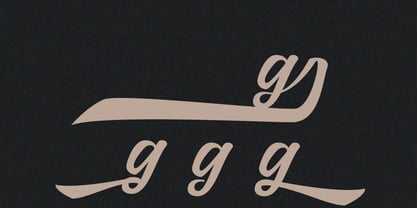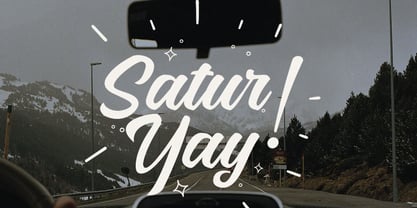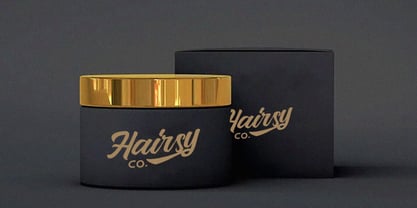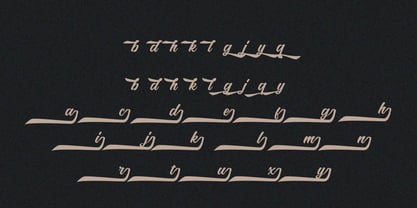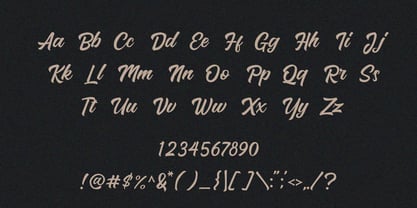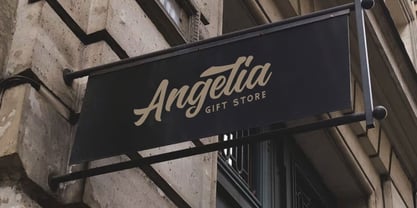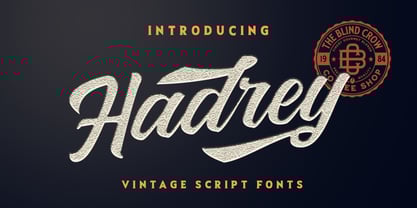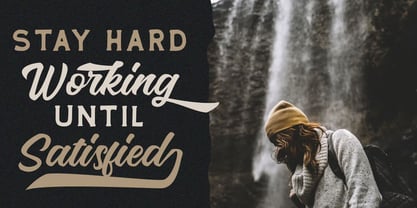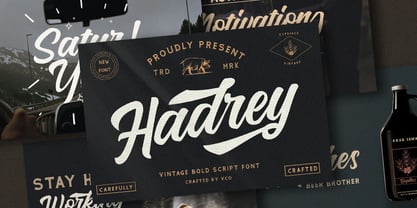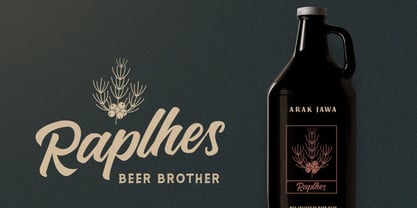
Hadrey
The Hadrey Font Family was designed by Candra Hamdani and published by Vultype Co. Hadrey contains 1 styles.
Hadrey is a vintage-inspired bold script font that blends handcrafted charm with bold confidence. Designed to capture attention while delivering a warm, retro feel, Hadrey is perfect for brands that want to stand out with character and authenticity.
Each curve and stroke was carefully crafted to maintain smooth flow and legibility, making it ideal for both print and digital use. Whether you're designing a logo, product label, apparel brand, or standout social media graphics, Hadrey gives your work a strong and stylish personality.
Why Designers Love Hadrey:
• Bold & Expressive – Great presence for titles, logos, and signage
• Handcrafted Feel – Adds authenticity to any vintage or retro concept
• Smooth Brush Style – Balanced between casual and professional
• Easy to Customize – Includes alternates and stylistic ligatures
• Multilingual Support – Covers extended Latin characters
Perfect For:
• Logo & Branding Projects
• Coffee & Artisan Packaging
• Clothing Labels & Merch Design
• Vintage Posters & Ads
• Social Media Headers
• Editorial Layouts